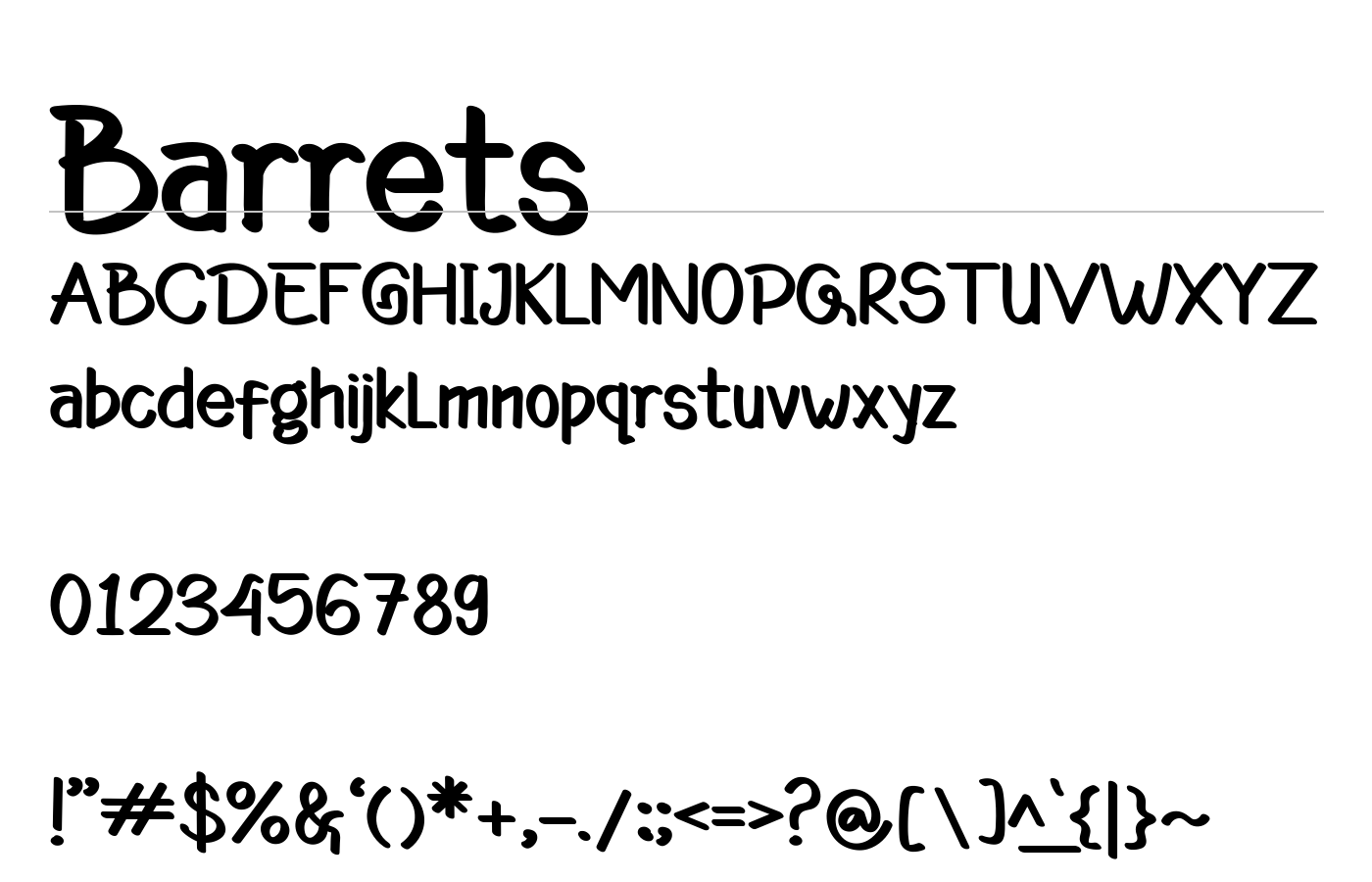
Barrets is a playful and casual handwritten-style sans serif font that features rounded, slightly irregular letterforms with a warm, friendly charm. Its moderate weight and moderate x-height create excellent readability, while the quirky, fun details in characters like the lowercase g and Q add personality, making it ideal for informal branding, children’s materials, and creative projects that seek a lively, approachable tone. This font works well in headings, logos, and packaging where a relaxed, inviting feel is desired.
Barrets Font
About Barrets Font
| Font family | Barrets Font |
| Designer | Rozi |